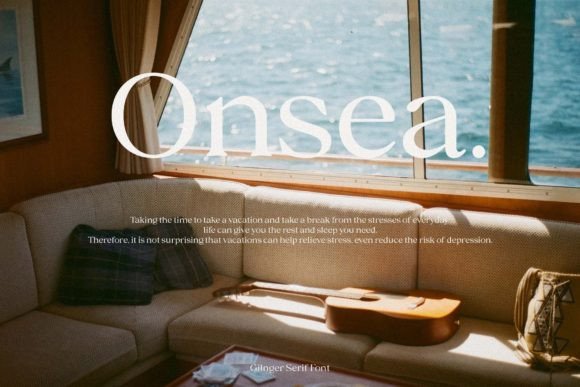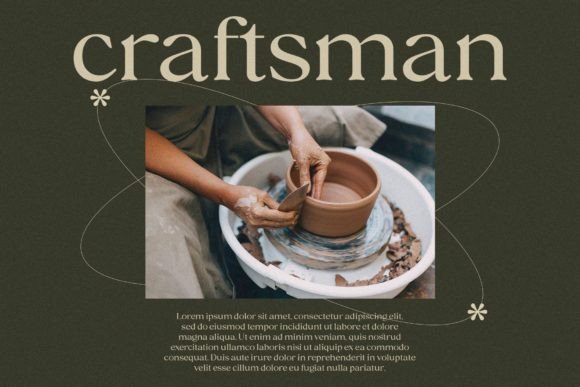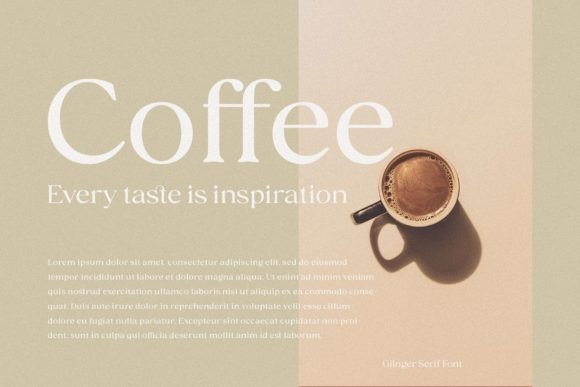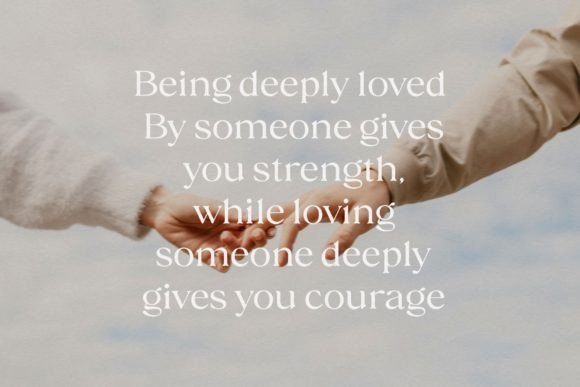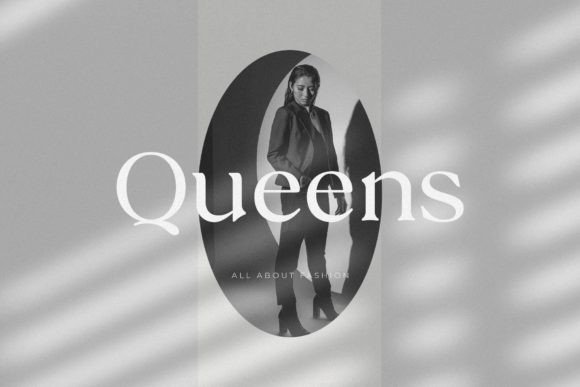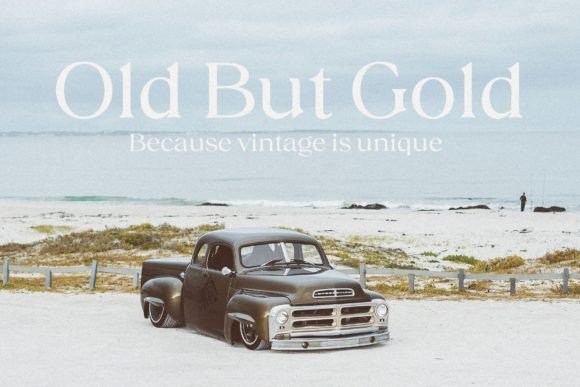
Introduction to Gilnger Font
Gilnger is a stylish and elegant serif font.
Fall in love with its incredibly versatile style and use it to create gorgeous wedding invitations, beautiful stationery art, eye-catching social media posts, and much more .
Key Features of Gilnger Font
Why Choose Gilnger Font?
Gilnger Font offers exceptional quality and versatility, making it a valuable addition to your design toolkit. Whether you’re creating for personal projects or commercial use, Gilnger Font delivers professional results.